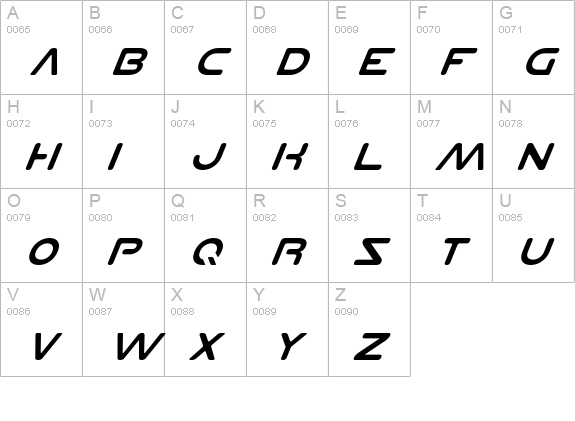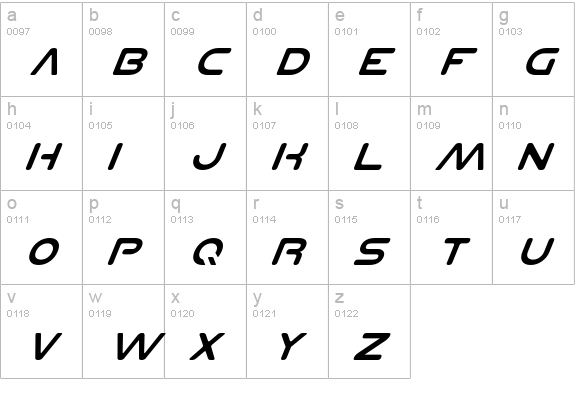
Planet N Italic Font Details
Planet N Italic is a distinctive, italic variant in the Planet typeface family \xE2\x80\x94 well suited to design and typography projects.
Introducing Planet N Italic font, a captivating and versatile typeface that combines elegance with a touch of modernity. This unique font is perfect for adding a stylish and sophisticated twist to any design project, whether it be for branding, advertising, or any creative endeavor. Planet N Italic font exudes a sense of effortless grace and charm, with its sleek and slanted letterforms that effortlessly flow across the page. Each character is meticulously crafted to ensure legibility and visual appeal, making it an ideal choice for both print and digital applications. What sets Planet N Italic font apart is not only its impeccable design, but also its accessibility. This font is freely available to download at FontsMarket.com, allowing designers and enthusiasts alike to unleash their creativity without any financial constraints. Now, you can effortlessly elevate your designs to new heights with this stunning font, without having to worry about breaking the bank. Whether you're looking to create eye-catching headlines, elegant logos, or captivating typography, Planet N Italic font is sure to impress. Its versatility and timeless appeal make it suitable for a wide range of design projects, from fashion and beauty to technology and beyond. So why wait? Enhance your design projects with the captivating charm of Planet N Italic font, and let your creativity soar. Visit FontsMarket.com today and download this incredible font for free, and experience the limitless possibilities it brings to your designs.